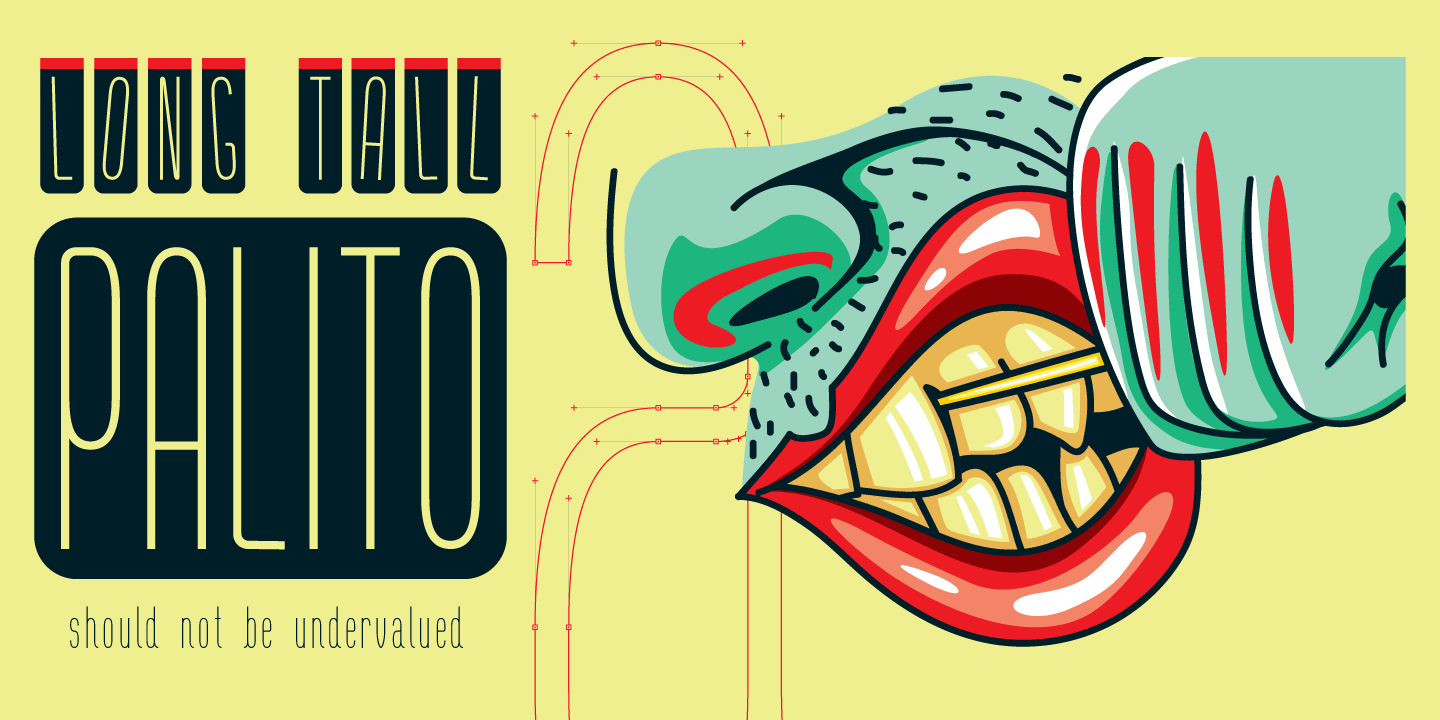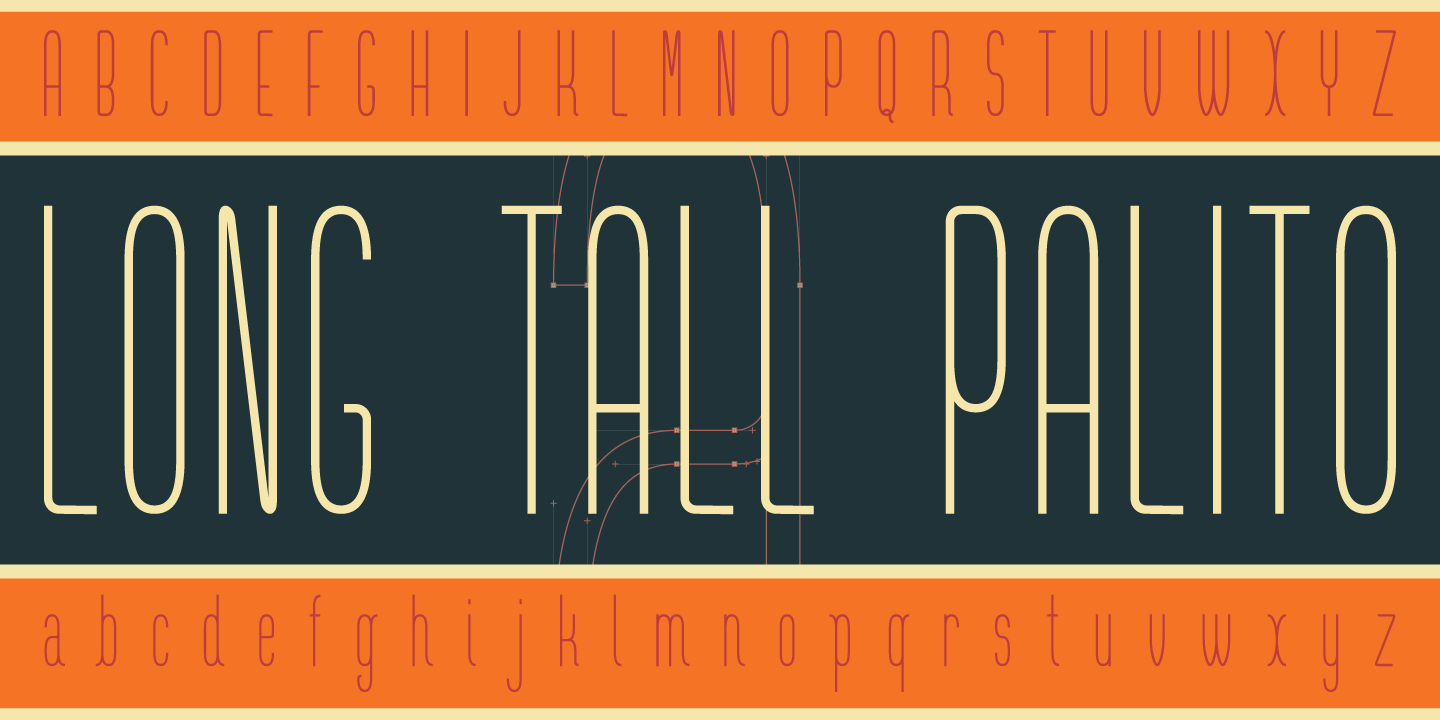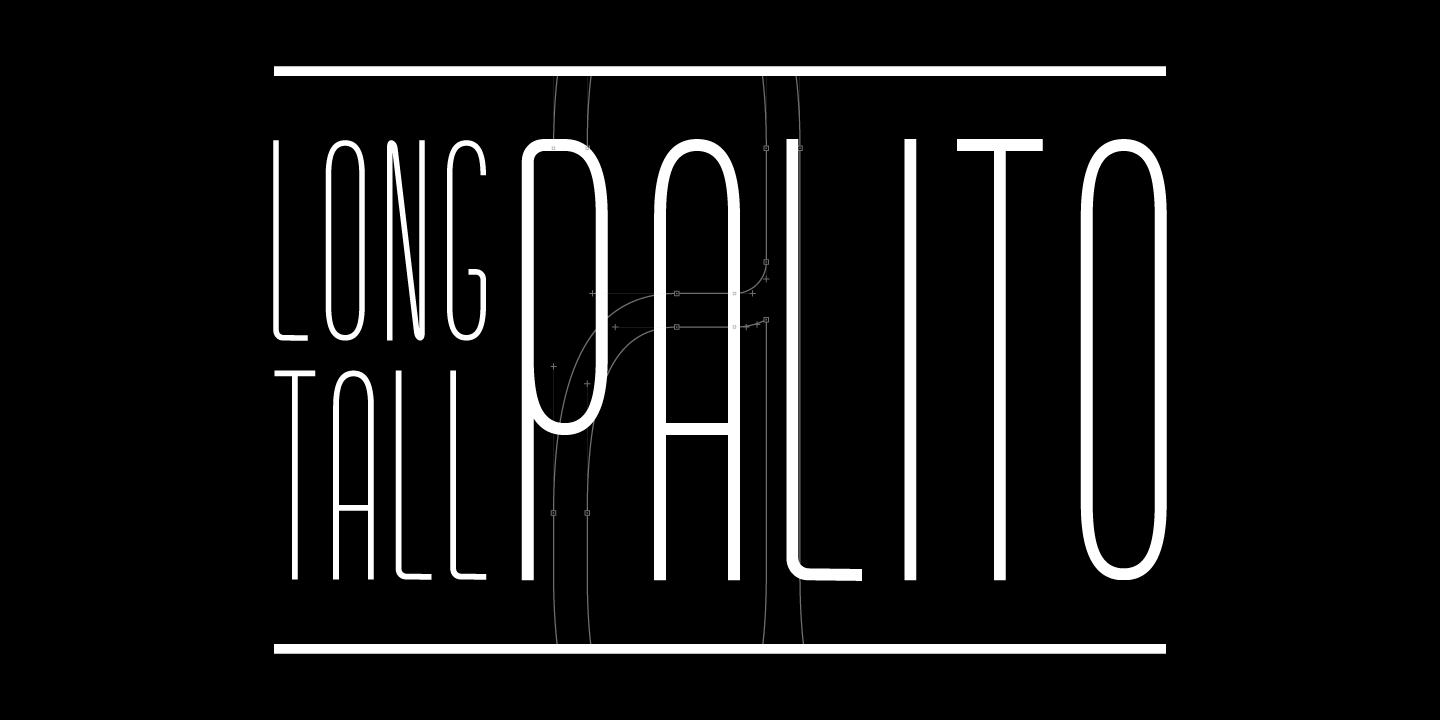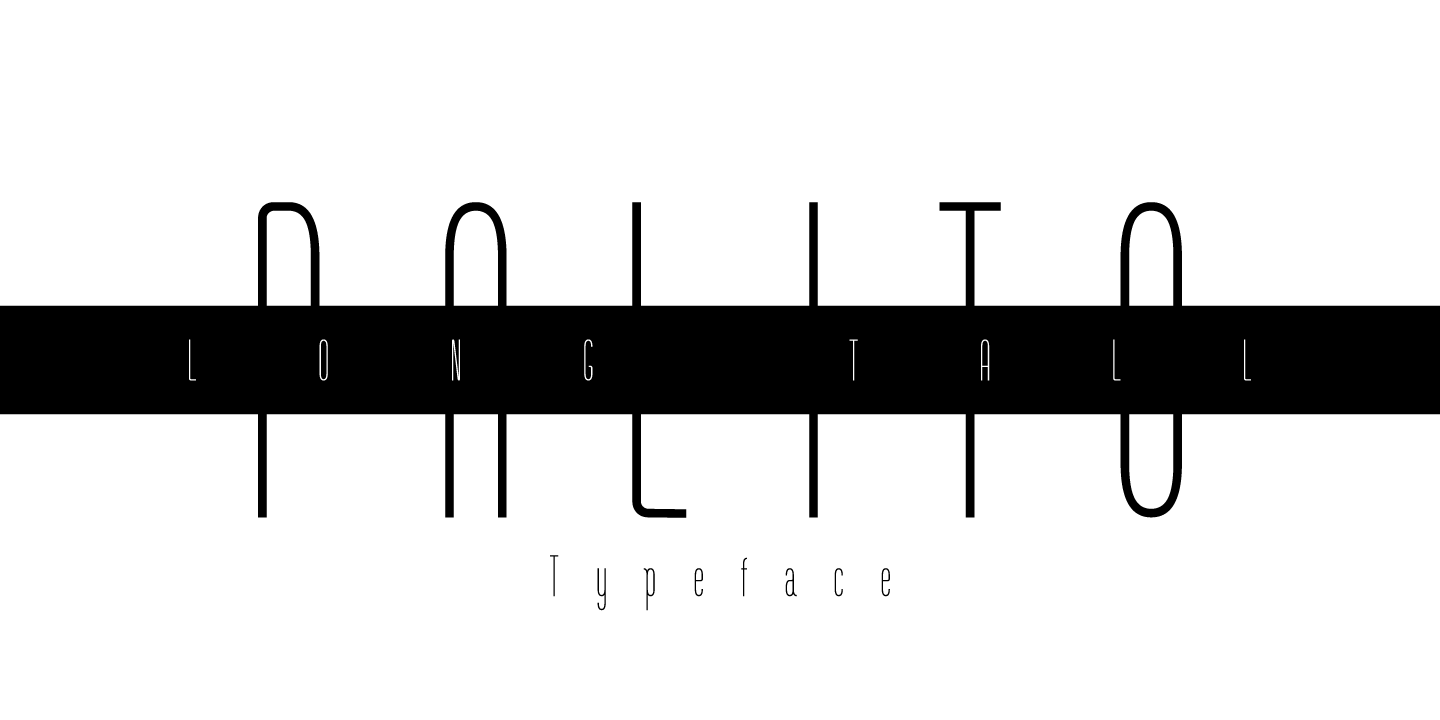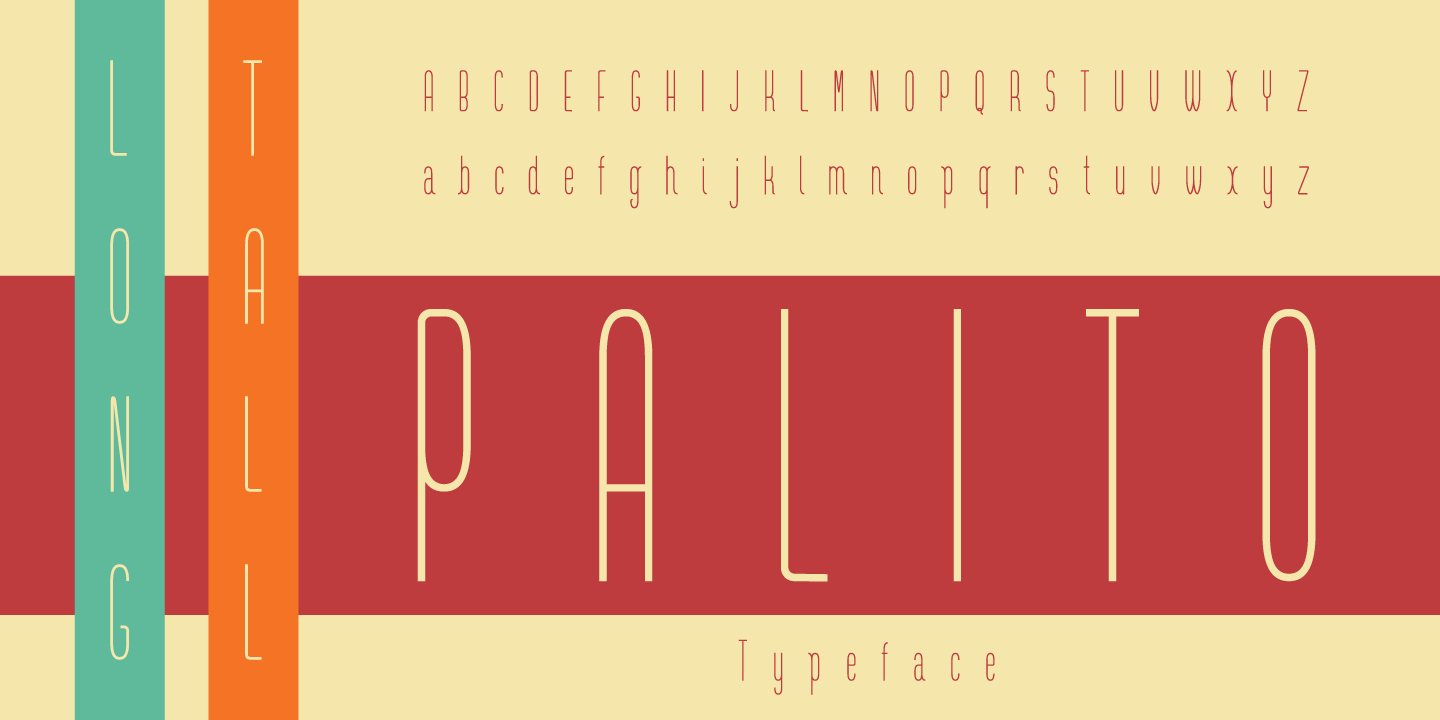
Long Tall Palito
Font Family by Pedro Teixeira Type Foundry
This font can make a great art element to emphasize, to provide impact, can stand out as a banner, or with a few words in headers and headlines and allow you to optimize space and keep neat and organized.